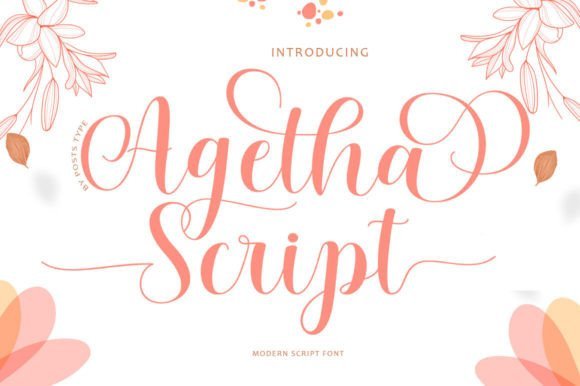
A Dazzling Addition to Your Font Library
Have you ever found yourself sitting in front of a blank page, staring at your computer screen, desperately trying to find the perfect words to express your creativity? You know, that moment when everything feels like it’s just not quite right, until you stumble upon the perfect font. For designers, this moment is a game-changer, and the Agetha Script Font is about to become your new best friend.
Agetha Script Font is a beautifully crafted, highly detailed script font that’s sure to elevate any design project. Whether you’re working on a logo, a poster, or a wedding invitation, this font has the potential to take your creation to the next level. With its PUA encoding, you’ll have access to all the glyphs and swashes you need to add that extra touch of elegance and sophistication to your designs.
Agetha Script Font Key Features
- Font Family: Agetha Script, a beautiful and elegant script font designed for various applications.
- Unique Characteristics: Features beautiful, flowing connections and elegant letterforms, making it perfect for creating elegant and sophisticated designs.
Agetha Script Font Review
Agetha Script Font is a beautiful, elegant font that can add a touch of sophistication to any design project. ✨ The font’s flowing lines and cursive style make it perfect for creating invitations, posters, and other promotional materials that need to convey a sense of luxury and refinement.
The font is highly customizable, allowing you to adjust the size, color, and spacing to suit your design needs. ✨ This level of control makes it easy to create a unique and eye-catching look that sets your project apart from the rest.
- ⚠️ Limited font sizes: While the font is highly customizable, it can become difficult to read at very small font sizes.
- ⚠️ Not ideal for body text: Due to its cursive style, Agetha Script Font may not be the best choice for large blocks of body text.
Overall, I’m impressed with Agetha Script Font’s elegance and versatility. ✨ However, its limitations should be taken into consideration when choosing a font for your project. With careful use, it can be a valuable addition to any designer’s toolkit.
Tips for Getting the Most Out of Agetha Script Font
Use Agetha Script Font for:
- Birth announcements and baby shower invitations.
- Special occasion graphics and logos.
Experiment with different font sizes, colors, and styles to create unique and eye-catching designs.
Alternatives to Agetha Script Font
Great Vibes Font is a beautiful, elegant script font perfect for adding a touch of sophistication to your designs. It’s ideal for use in titles, headings, and quotes where you want to convey a sense of luxury and refinement.
Great Vibes Font has a more refined and delicate feel compared to Agetha Script Font, making it suitable for high-end designs. It’s also more versatile and can be used in a wider range of contexts.
Alex Brush Font is a calligraphic script font with a personal, handwritten feel. It’s perfect for use in creative projects, such as invitations, wedding stationery, and art prints.
Alex Brush Font has a more fluid and expressive feel compared to Agetha Script Font, making it suitable for projects that require a more emotional and personal touch. However, it may not be as versatile as Great Vibes Font.